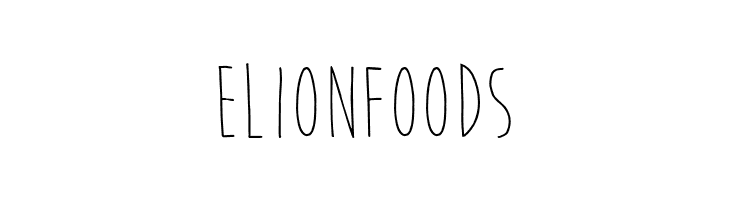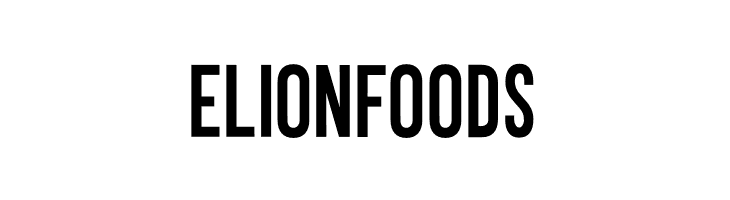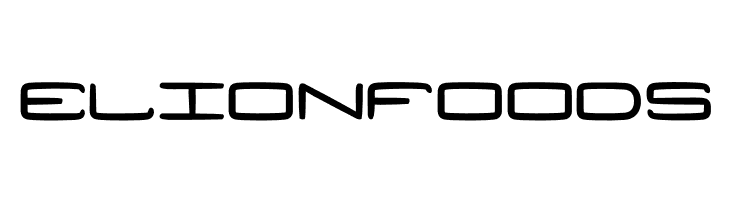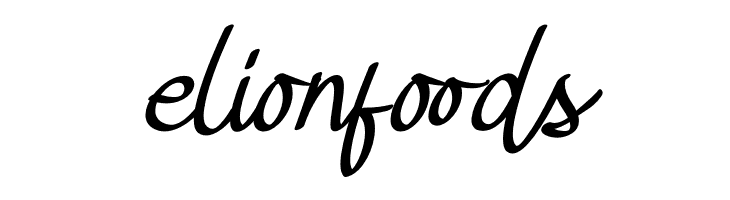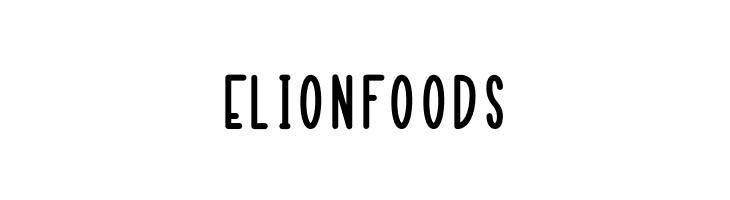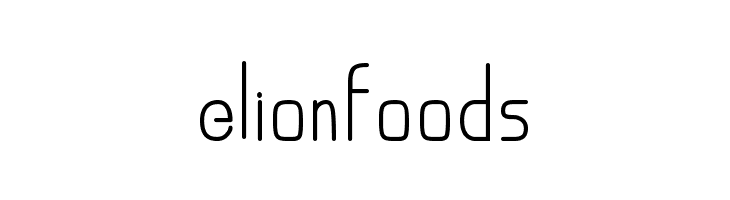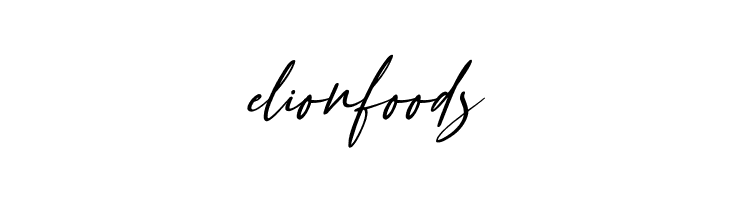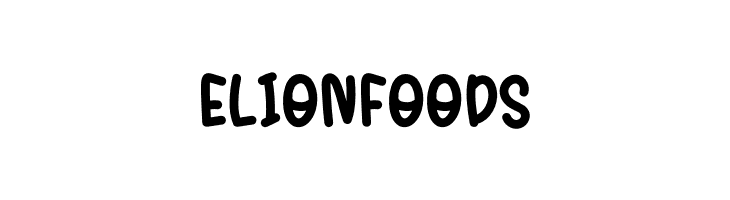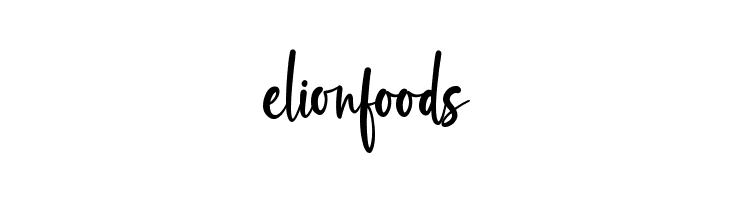
• MoonFlower
A whimsical, handwritten font with tall, narrow letters and a playful style.
• Moonlite Solid Personal Use
A bold, modern font with a condensed and impactful design.
• Moon Hand
A futuristic, geometric font with rounded edges and consistent stroke width.
• Ballimoon
A lively, cursive font with a handwritten, elegant style.
• Estermoon
A playful, casual handwritten font with smooth, flowing lines.
• PAPER MOON
A playful, rounded font with smooth curves and consistent width.
• The Moon
A modern, geometric font with clean lines and a uniform appearance.
• Gattermoon
A flowing, cursive script font with elegant, connected letters.
• Christ Moon
A playful, bold font with rounded strokes and a whimsical style.
• Moonflowers
A lively, handwritten font with dynamic strokes and playful curves.